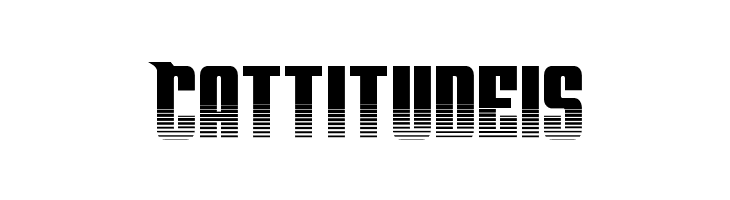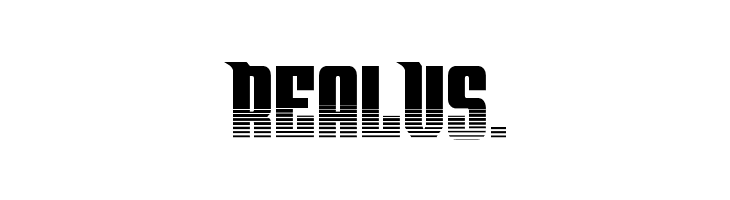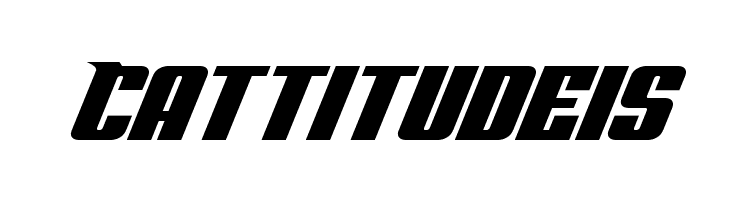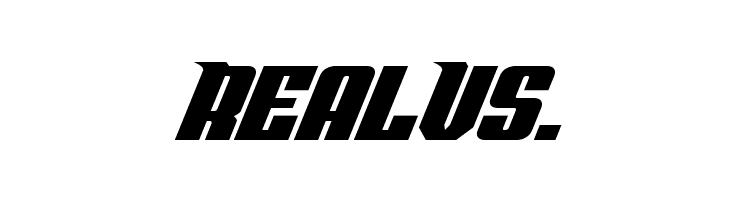
• Bandit & Snowman 3D
A bold, 3D outlined font with a vintage, geometric style.
• Bandit & Snowman 3D Italic
A bold, 3D italic font with a modern and dynamic style.
• Bandit & Snowman Cond Semi-Ita
A bold, condensed, semi-italic font with high contrast and tight spacing.
• Bandit & Snowman Condense Ital
A bold, condensed, and italicized font with high contrast and tight spacing.
• Bandit & Snowman Condensed
A bold, condensed font with strong geometric shapes and a modern look.
• Bandit & Snowman Exp Semi-Ital
A bold, angular font with a dynamic, forward-leaning style.
• Bandit & Snowman Expanded
A bold, geometric font with an expanded width and strong, block-like characters.
• Bandit & Snowman Expanded Ital
A bold, italicized font with expanded width and low contrast, perfect for impactful designs.
• Bandit & Snowman Gradient
A bold, decorative font with a gradient effect and geometric structure.
• Bandit & Snowman Gradient Ital
A bold, italicized font with a dynamic gradient effect and horizontal line design.
• Bandit & Snowman Halftone
A bold, modern font with a halftone gradient effect, perfect for impactful headlines.
• Bandit & Snowman Halftone Ital
A bold, italicized font with a dynamic halftone effect.
• Bandit & Snowman Italic
A bold, italicized font with a dynamic and angular design.
• Bandit & Snowman Laser
A bold, futuristic font with a blocky, industrial style.
• Bandit & Snowman Laser Italic
• Bandit & Snowman Leftalic
A bold, left-slanted font with a dynamic and energetic style.
• Bandit & Snowman Rotalic
A bold, italicized font with dynamic, sharply angled characters.
• Bandit & Snowman Semi-Italic
A bold, italicized font with a dynamic, geometric style.
• Bandit & Snowman Semi-Leftalic
A bold, left-slanted font with wide, angular characters.
• Bandit & Snowman Slight Italic
A bold, slightly italic font with dynamic, angular lines and high contrast.
• Bandit & Snowman Slight Left
A bold, dynamic font with sharp angles and a slightly condensed structure.
• Bandit & Snowman Spaced